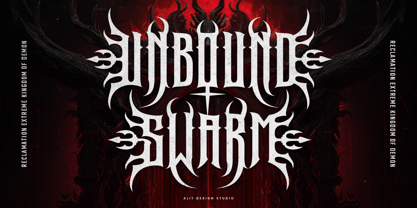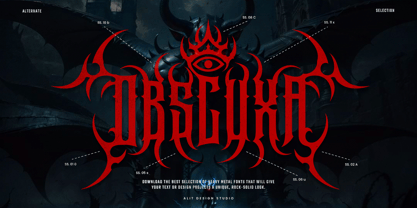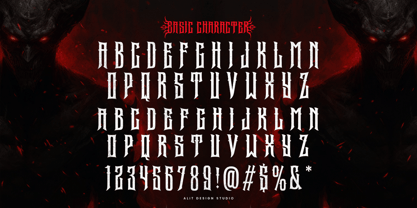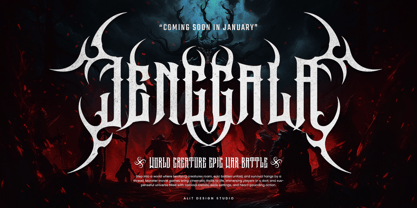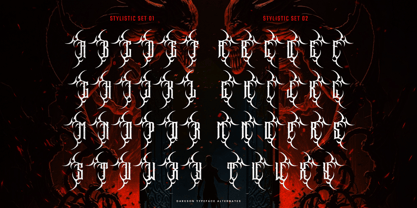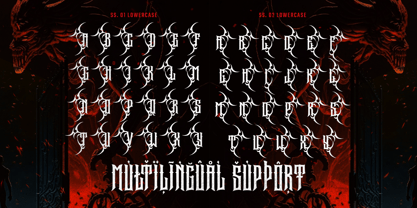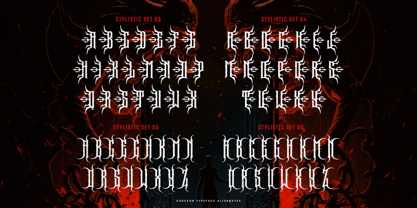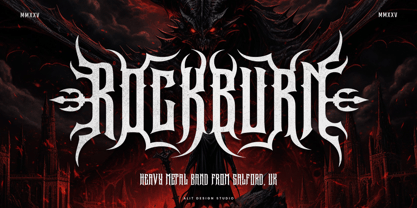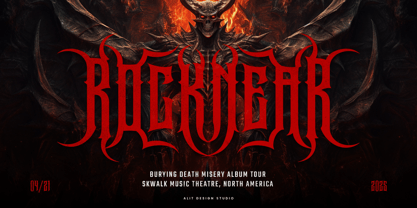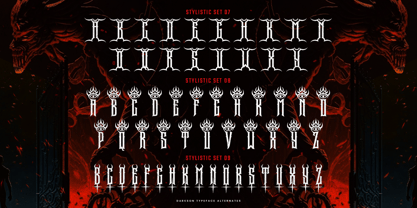
Darkson
Unleash the raw, relentless power of darkness with Darkson Typeface, a sinister and brutal font designed to bring your death metal visions to life. Every character is steeped in cruel elegance, featuring jagged horns, entangled roots, razor-sharp thorns, and the haunting presence of Illuminati-inspired eyes.
Perfect for album covers, band logos, merchandise, posters, and anything that craves a touch of firm, dark energy, Darkson Typeface embodies the chaos and beauty of the abyss.
Features:
• Massive Character Set: With 934 meticulously crafted characters, explore endless possibilities for your designs.
• Alternates Galore: Find the perfect variation to enhance your artwork with a wealth of alternative styles.
• Dynamic Ligatures: Achieve seamless connections between letters for a more cohesive and authentic look.
• Swashes with Style: Add dramatic flourishes with unique swashes that elevate your designs.
• Multilingual Support: Speak to the world with support for a wide range of languages.
Whether you're summoning the apocalypse on stage or branding the darkest of themes, Darkson Typeface stands as your ultimate weapon in the realm of cruel, gothic design.
Bring the darkness. Rule the chaos. Choose Darkson.